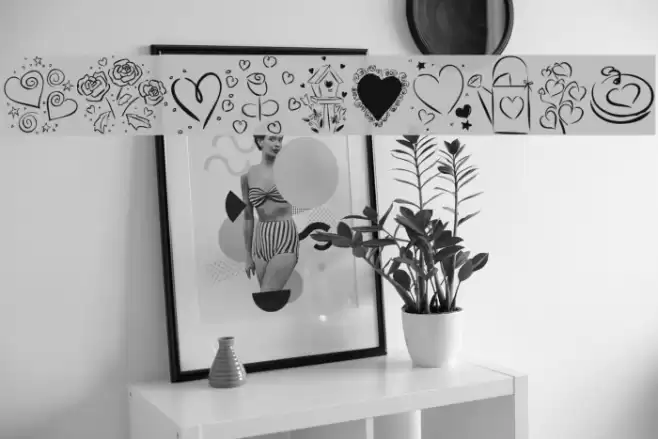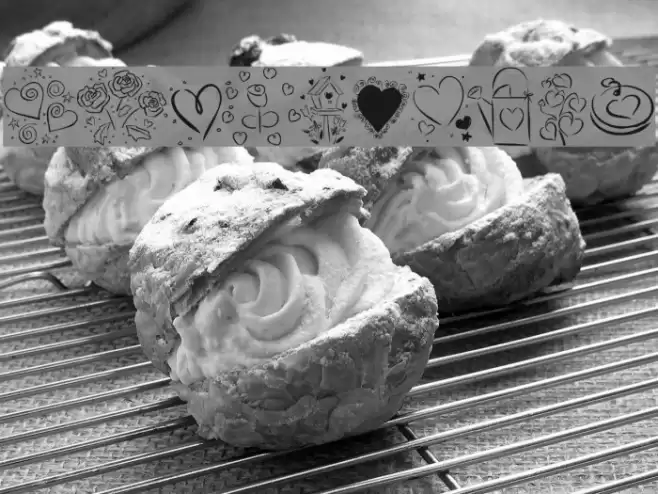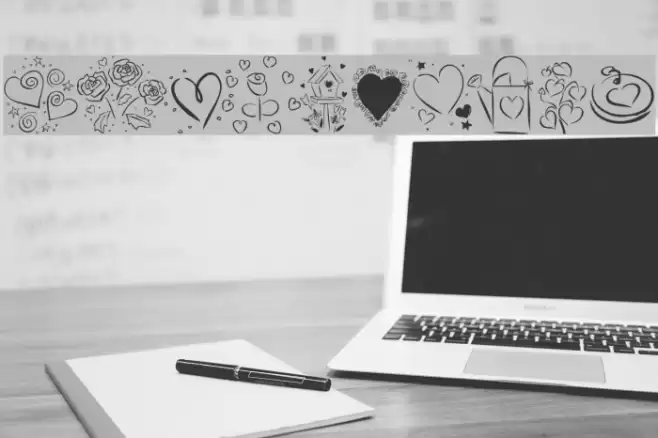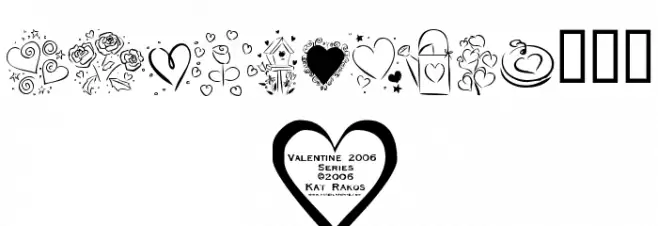
KR Valentines 2006 Font
KR Valentines 2006 Description
This is a decorative font featuring a series of charming and whimsical Valentine-themed illustrations. Each character is represented by a unique design, incorporating elements such as hearts, flowers, and romantic motifs. The style is playful and artistic, making it ideal for projects that require a touch of love and creativity. The designs are intricate and detailed, offering a visually appealing aesthetic that captures the essence of Valentine's Day.
- Proposed Projects: Ideal for Valentine's Day cards, romantic event invitations, themed posters, and decorative crafts.
- Use Case: Logos, Decorative elements